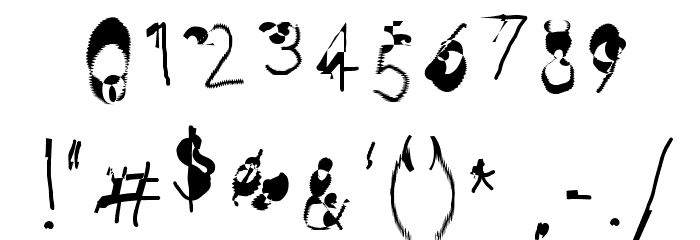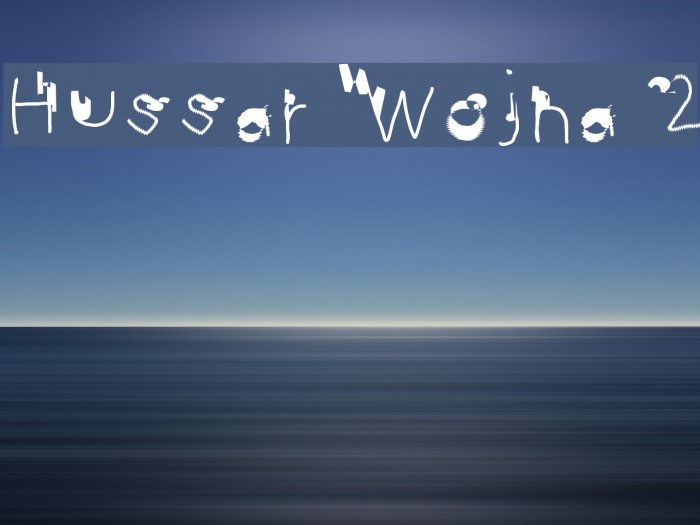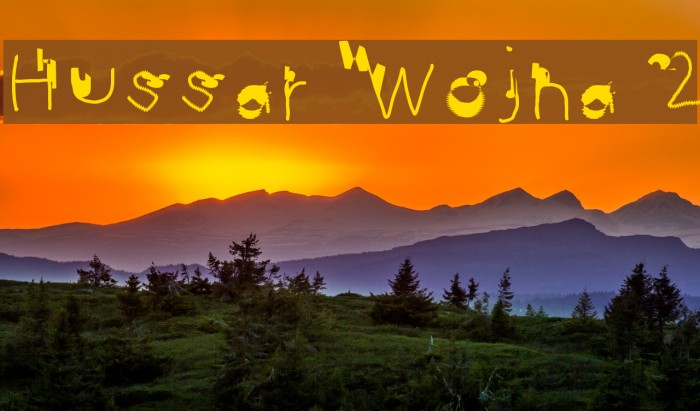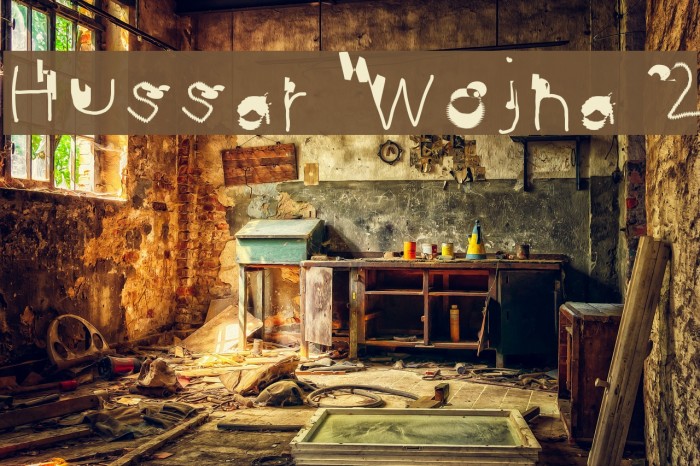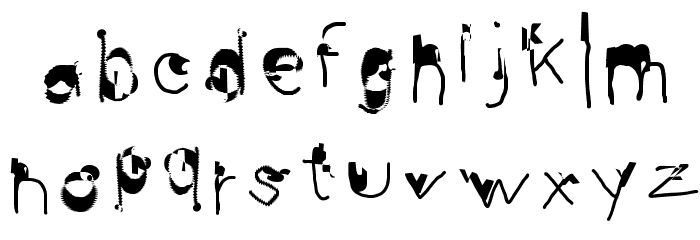
Hussar Wojna 2 Font
This font exhibits a highly distinctive and artistic style, characterized by its fragmented and distorted letterforms. Each character appears as if it has been torn or shredded, creating a dynamic and chaotic visual effect. The uppercase and lowercase letters maintain this irregular and jagged appearance, while the numbers and special characters follow suit with similar distortion. The overall aesthetic is bold and unconventional, making it suitable for projects that require a strong visual impact. The font's unique design elements suggest a sense of movement and energy, ideal for creative and experimental uses.
A bold, fragmented font with a chaotic and artistic style.
• Proposed Projects: Ideal for album covers, poster designs, and edgy branding projects.
• Category: Decorative/Display
• Contrast: High
• Overall Style: Modern, Artistic
• Use Case: Headlines, Logos